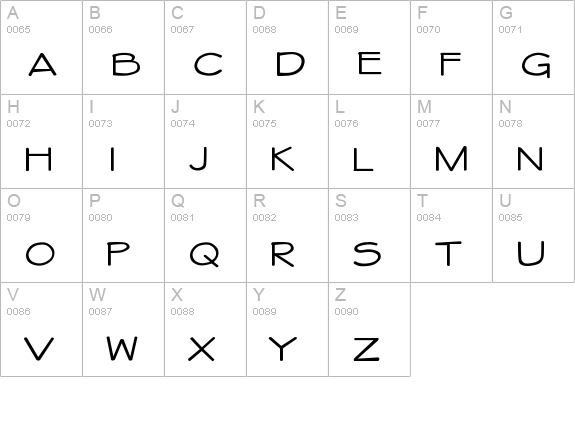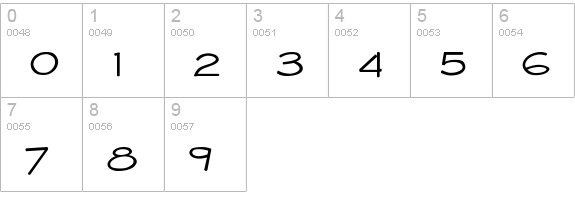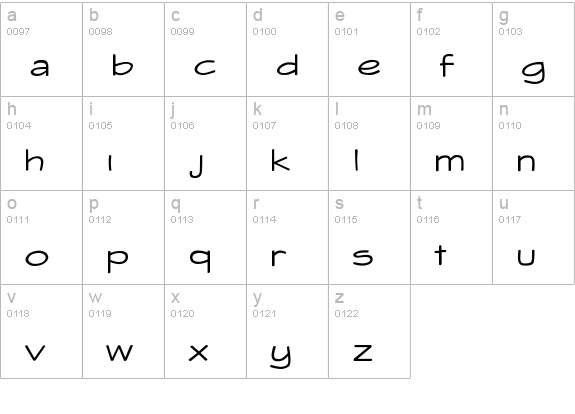
Whitehall 1212 Font Details
Whitehall 1212 font is a timeless and elegant typeface that exudes sophistication and charm. With its clean lines and classic design, this font is perfect for adding a touch of refinement to any project. Whether you're working on a wedding invitation, a business presentation, or a branding project, Whitehall 1212 font will elevate your design to the next level. The best part? Whitehall 1212 font is available for free download at FontsMarket.com. This means you can easily access this stunning font without any cost, making it the perfect choice for both personal and commercial use. Don't miss out on the opportunity to enhance your projects with the beauty of Whitehall 1212 font - download it today and start creating stunning designs effortlessly.